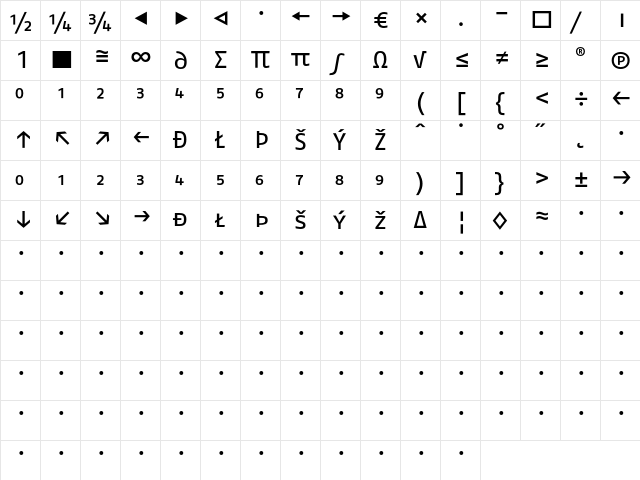
FagoEx CapsExp Font Preview
FagoEx CapsExp
Design Context for FagoEx Typeface
FagoEx is a composed and adaptable typeface that performs quietly and consistently across a wide range of design contexts.